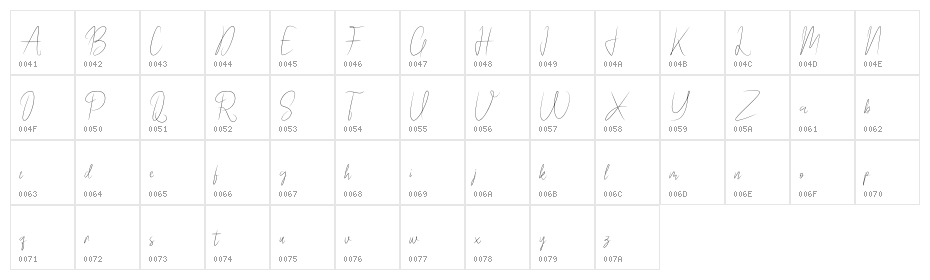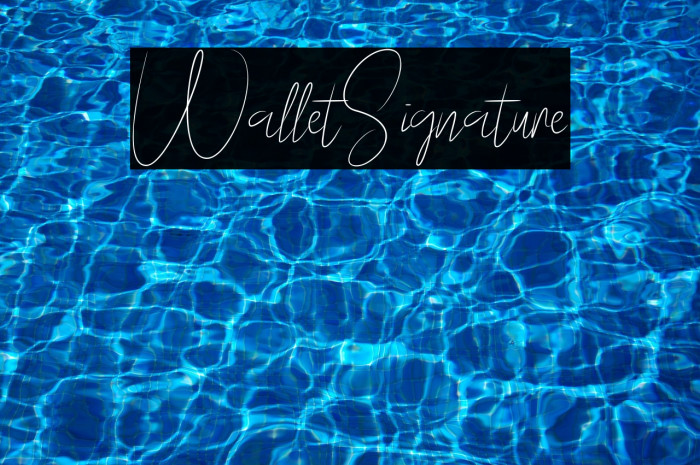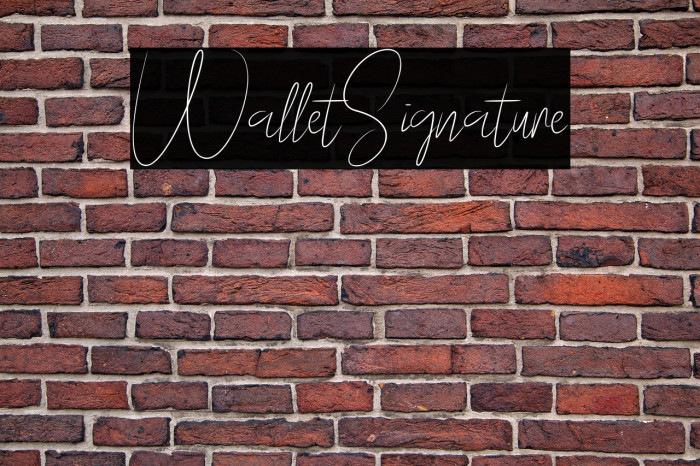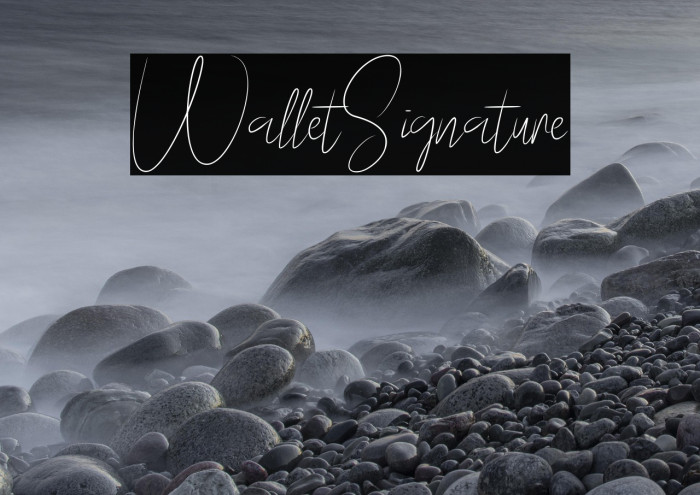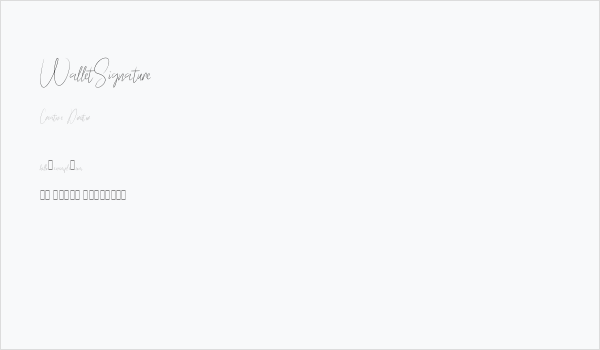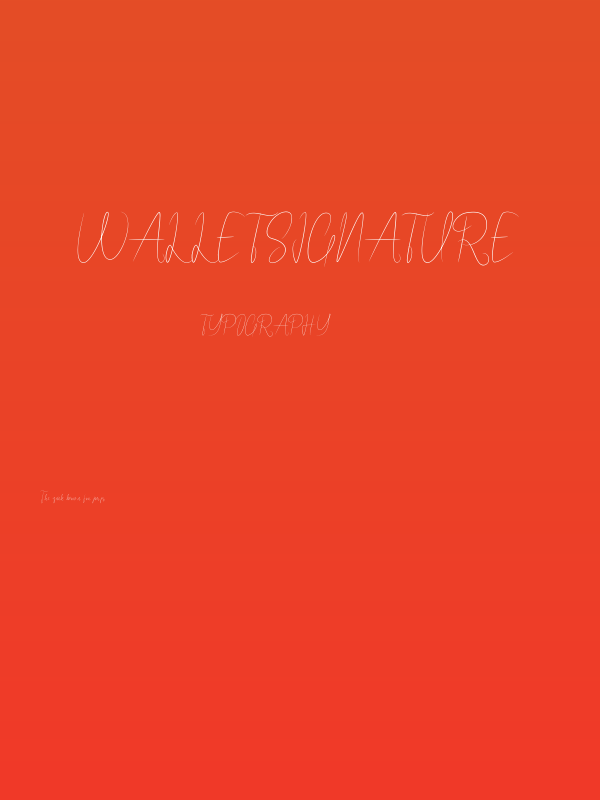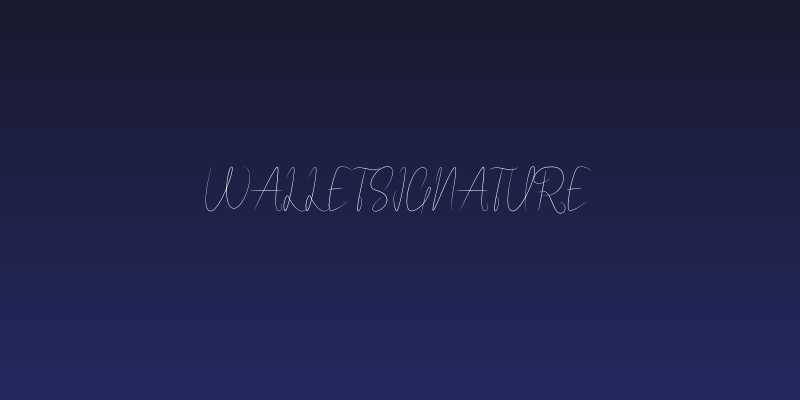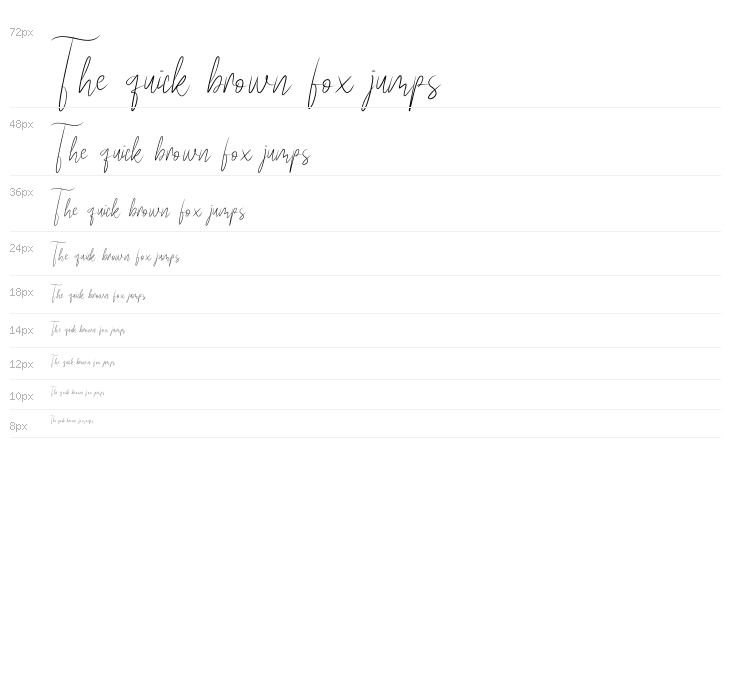
WalletSignature Font
WalletSignature Description
This font exudes elegance and sophistication with its fluid, cursive style. The characters are intricately designed, featuring smooth curves and delicate lines that mimic the natural flow of handwriting. The uppercase letters are tall and graceful, while the lowercase letters maintain a consistent, flowing rhythm. This font's thin strokes and subtle variations in line thickness add a touch of refinement, making it ideal for projects that require a personal, handwritten touch. The overall appearance is both modern and timeless, suitable for a variety of creative applications.
| Overall Style | Elegant, Handwritten |
| Use Case | Logos, Invitations, Personal Branding |
| Proposed Projects | Ideal for wedding invitations, personal branding, elegant stationery, and artistic projects. |